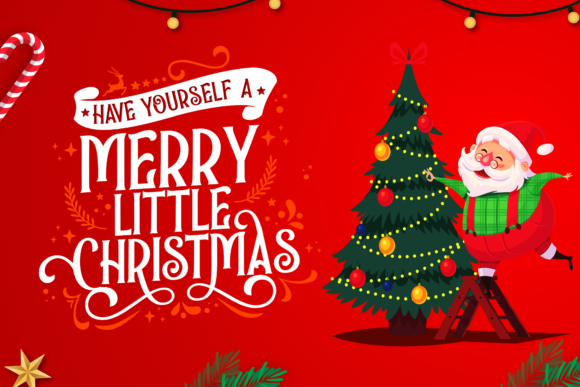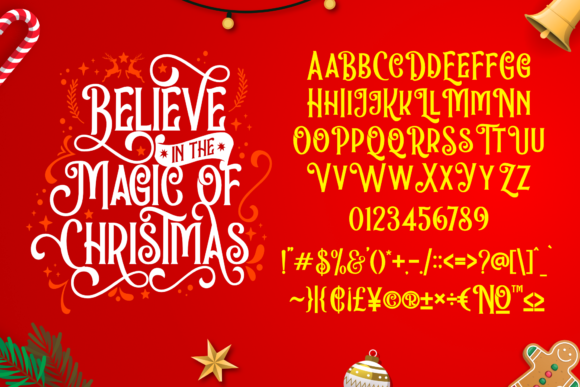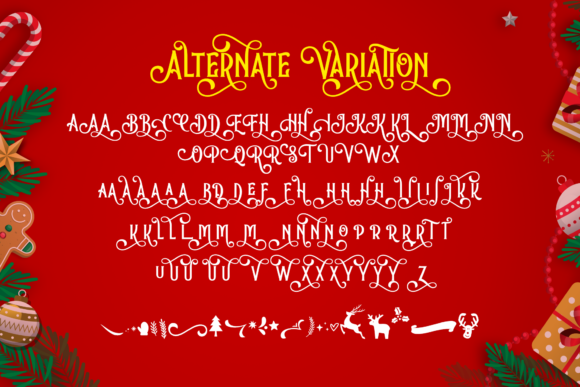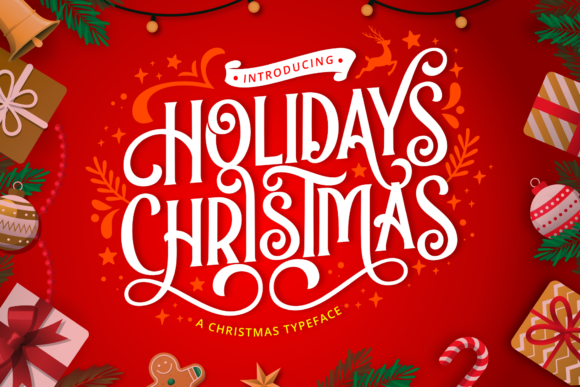
Introduction to Holidays Christmas Font
Holidays Christmas is a festive and incredibly classy display font.
It is ideal for any of your winter break creations so add it to your designs and bring them to life .
Holidays Christmas Font offers exceptional quality and versatility, making it a valuable addition to your design toolkit. Whether you’re creating for personal projects or commercial use, Holidays Christmas Font delivers professional results.